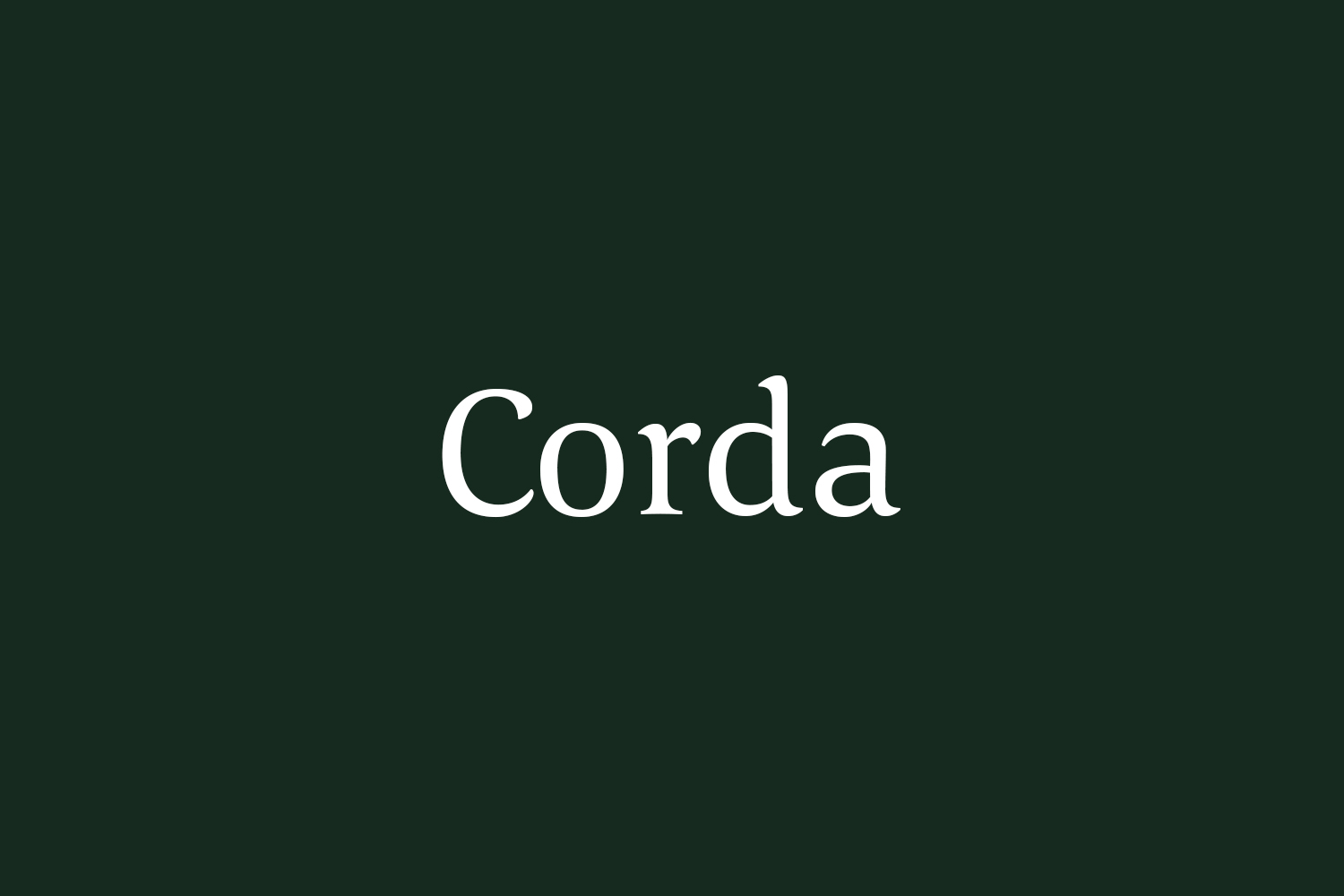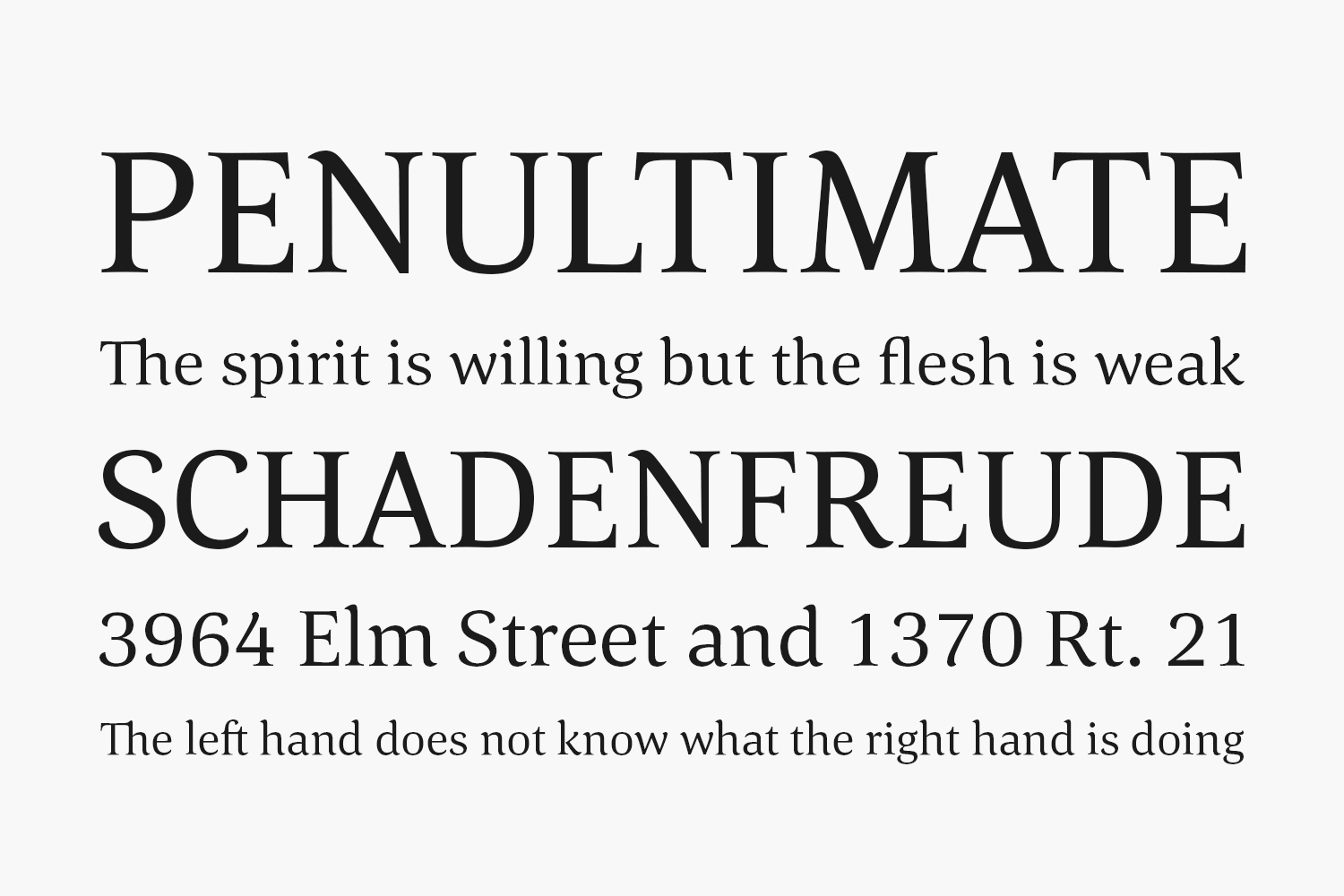
Corda Free Font Family is an elegant serif family with an easygoing, flowing ductus. It is semi-contrasted and even in the heavier styles appears light and breezy. Pleasant for reading and in display sizes very attractive. Corda comes in ten styles, in OpenType format and with extended language support for more than 40 languages. All weights contain standard and discretional ligatures, proportional lining figures, tabular lining figures, proportional old style figures, lining old style figures, matching currency symbols, fraction- and scientific numerals.